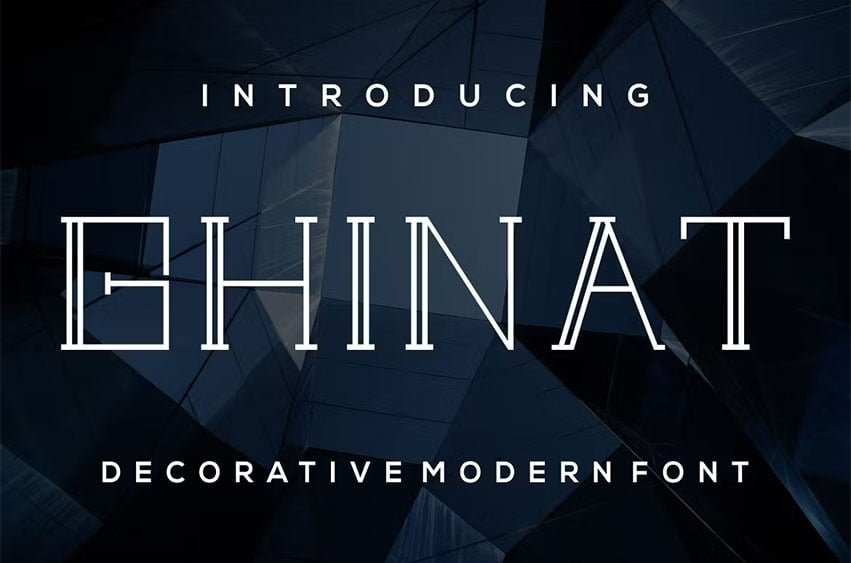
Ghinat Font Decorative Modern Font.Ghinat is a modern and simple font, best used as a display for headings, logos, branding, magazines, product packaging and invitations. Ghinat come with clean lines and smooth curves give any project an extra touch of class.